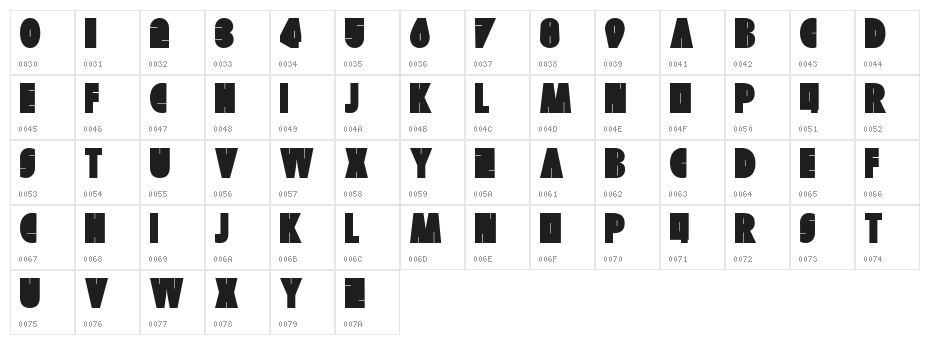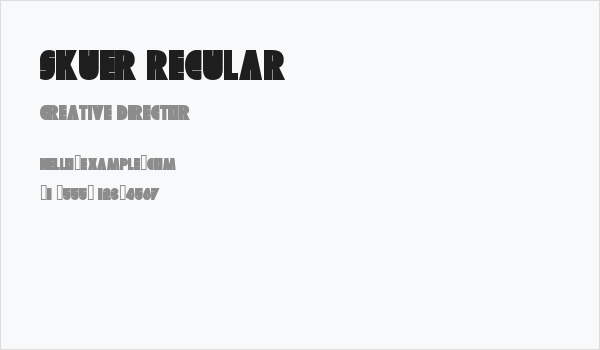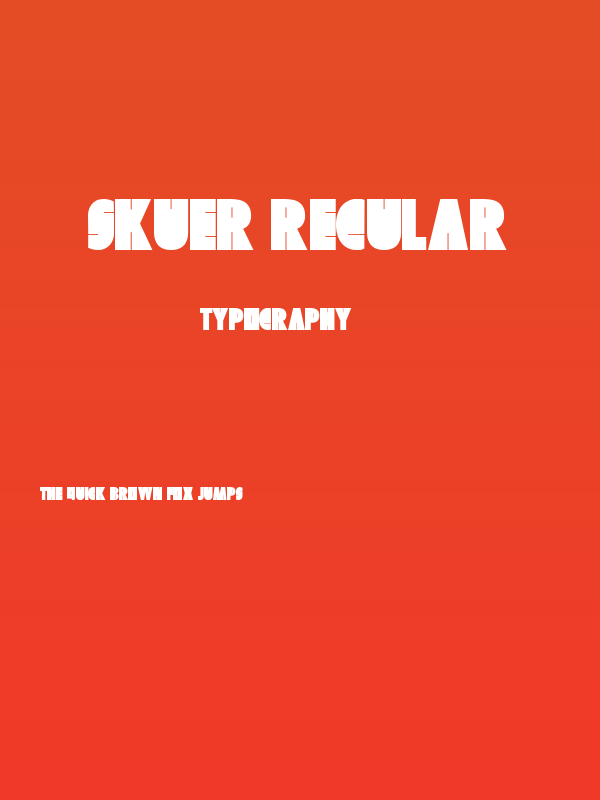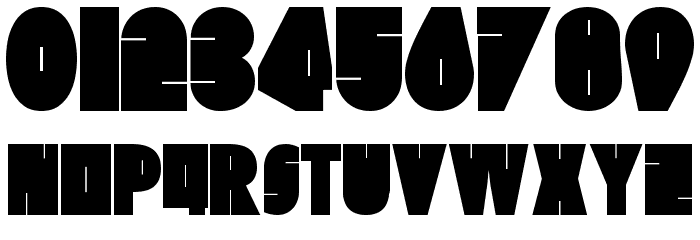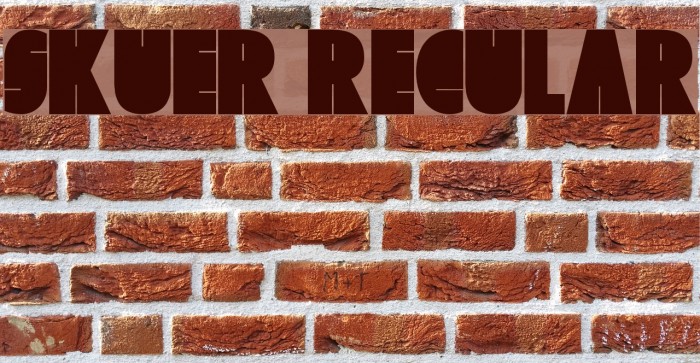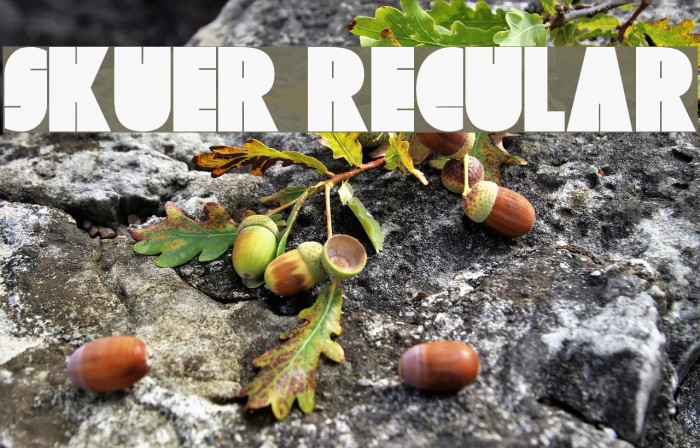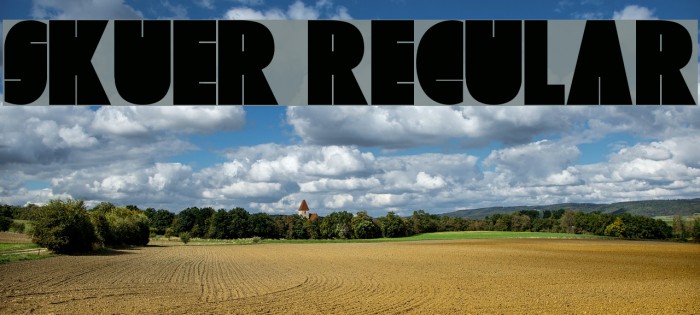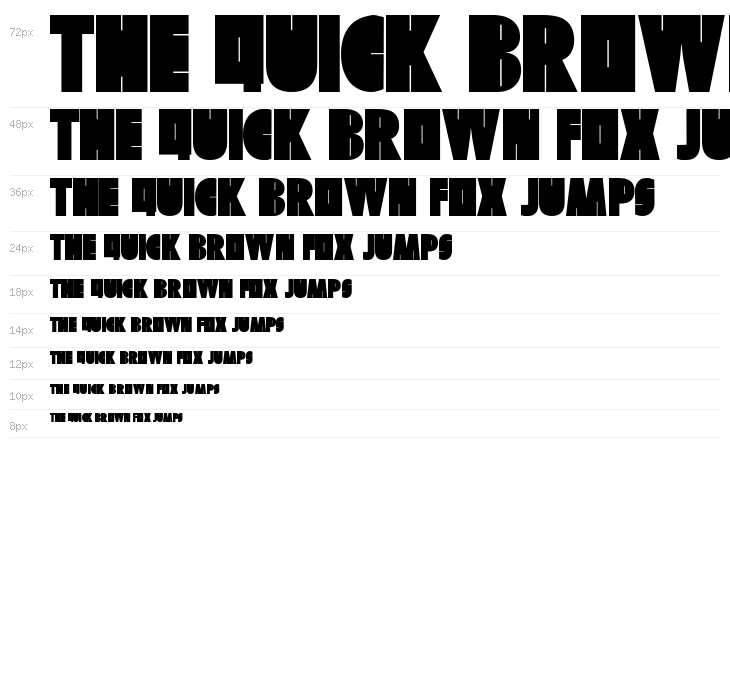
Skuer Regular Font
Skuer Regular Description
This font features a bold and striking design with a geometric and blocky appearance. Each character is constructed with thick, uniform strokes that create a sense of strength and stability. The letters are wide and have a slightly condensed form, giving them a compact look. The font's unique style is characterized by its sharp angles and clean lines, making it highly readable even at smaller sizes. The consistent weight across all characters ensures a harmonious and balanced visual impact. This font is ideal for making a bold statement in any design project.
| Proposed Projects | Ideal for posters, headlines, logos, and branding materials that require a strong visual impact. |